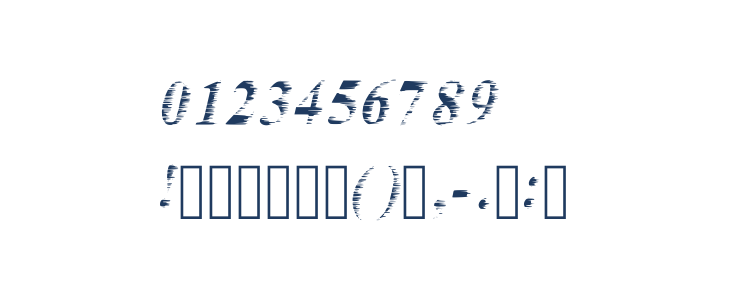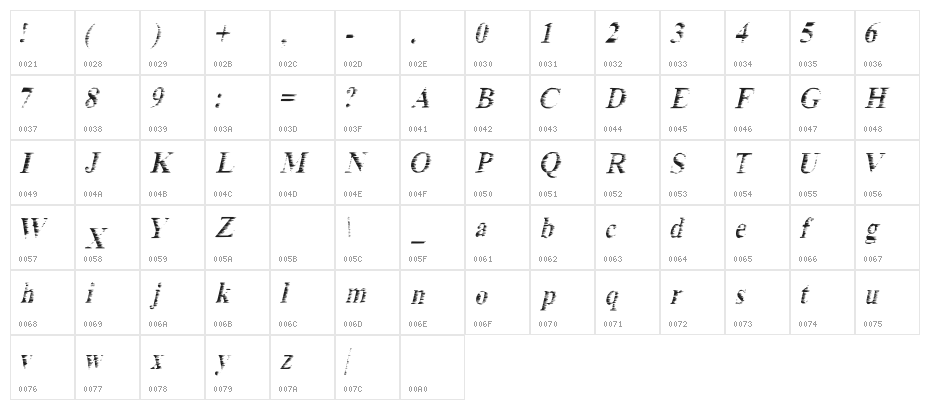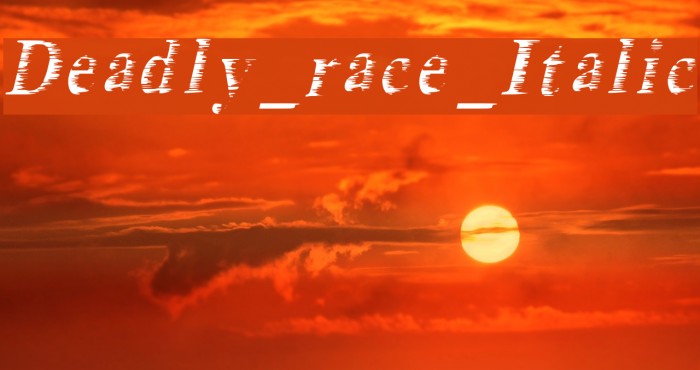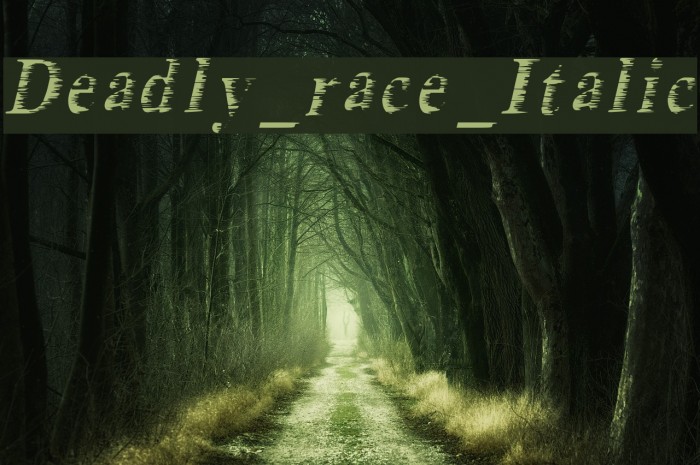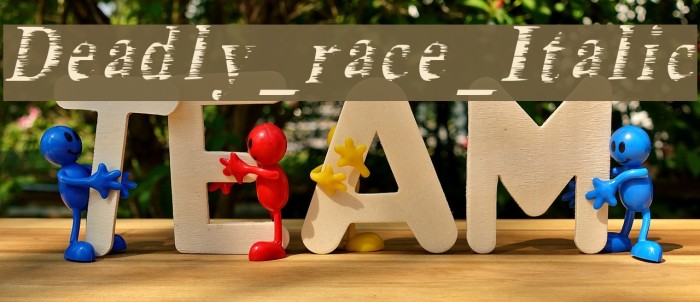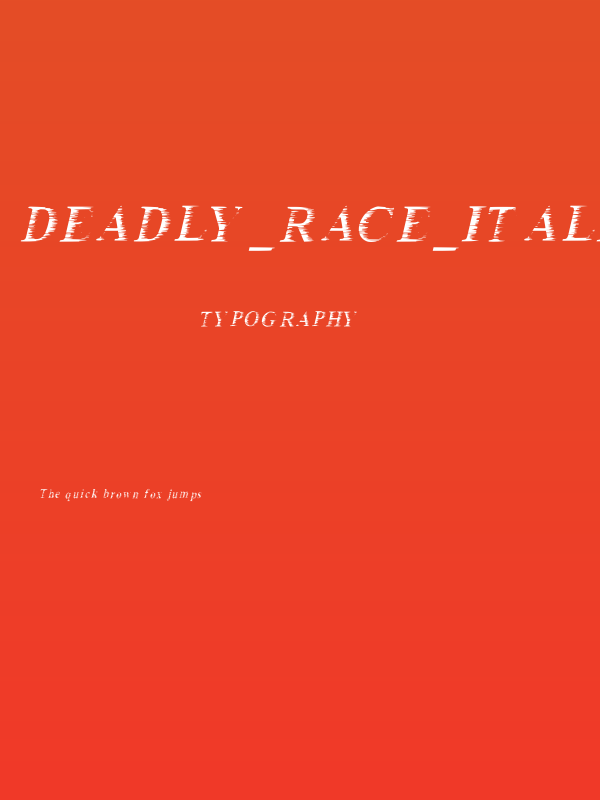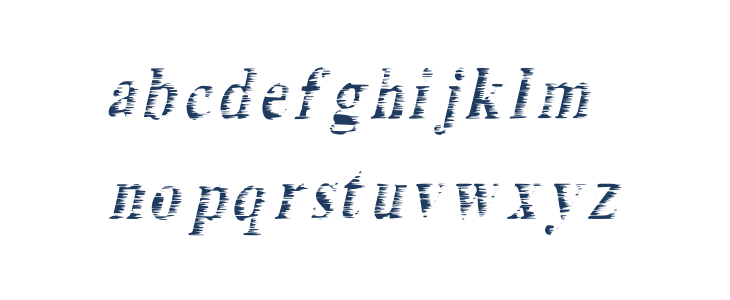
Deadly_race_Italic Font
Deadly_race_Italic Description
This font features a dynamic, italicized style with a distressed, grunge effect that gives it a sense of motion and urgency. The characters are bold and slightly slanted, creating an energetic and edgy appearance. The distressed texture adds a rugged, rebellious feel, making it ideal for projects that require a bold statement. The uppercase and lowercase letters maintain a consistent style, with numerals and special characters following suit. The font's unique design makes it stand out, perfect for eye-catching headlines or thematic designs.
| Overall Style | Modern, Edgy |
| Proposed Projects | Ideal for posters, album covers, video game graphics, and edgy branding projects. |